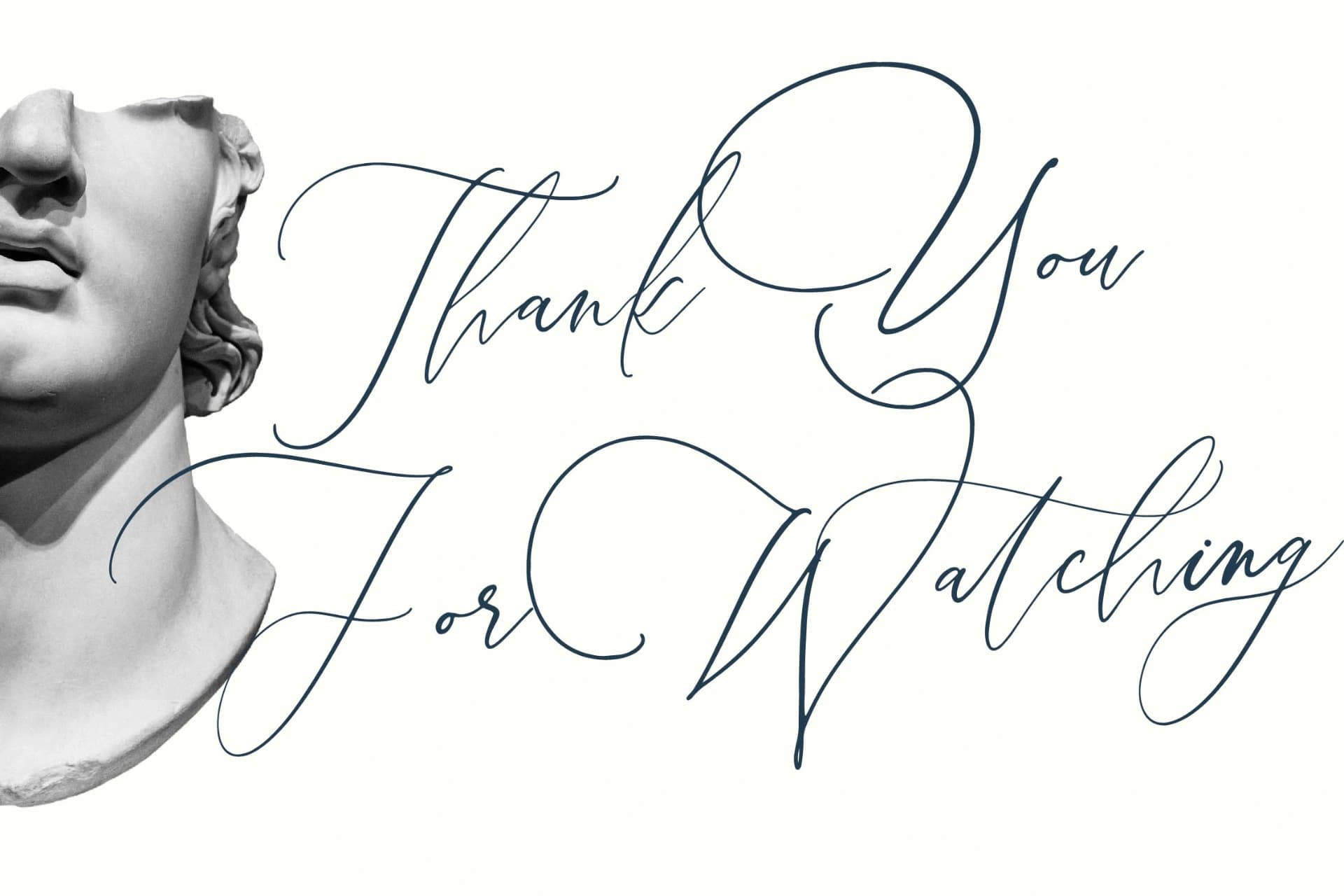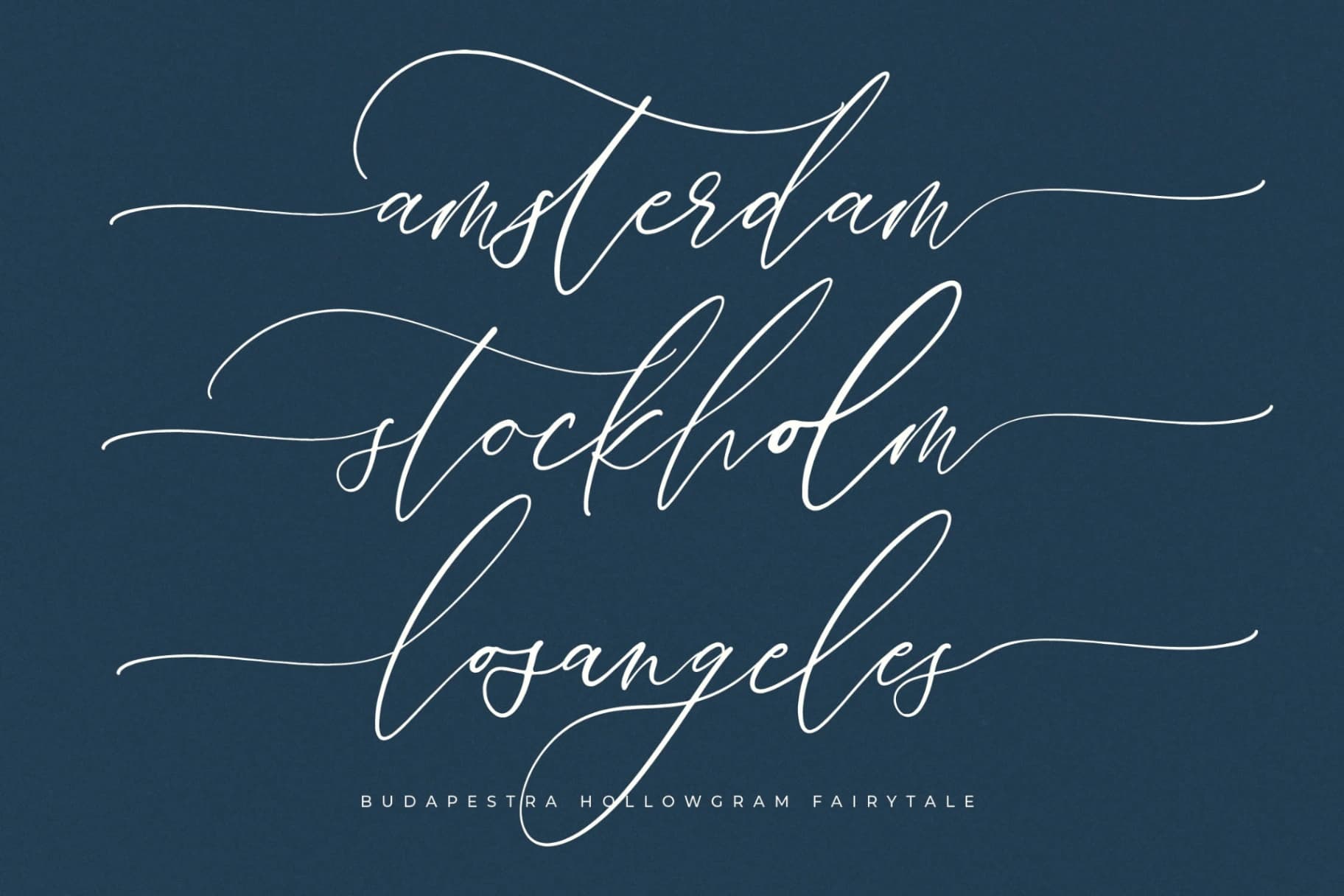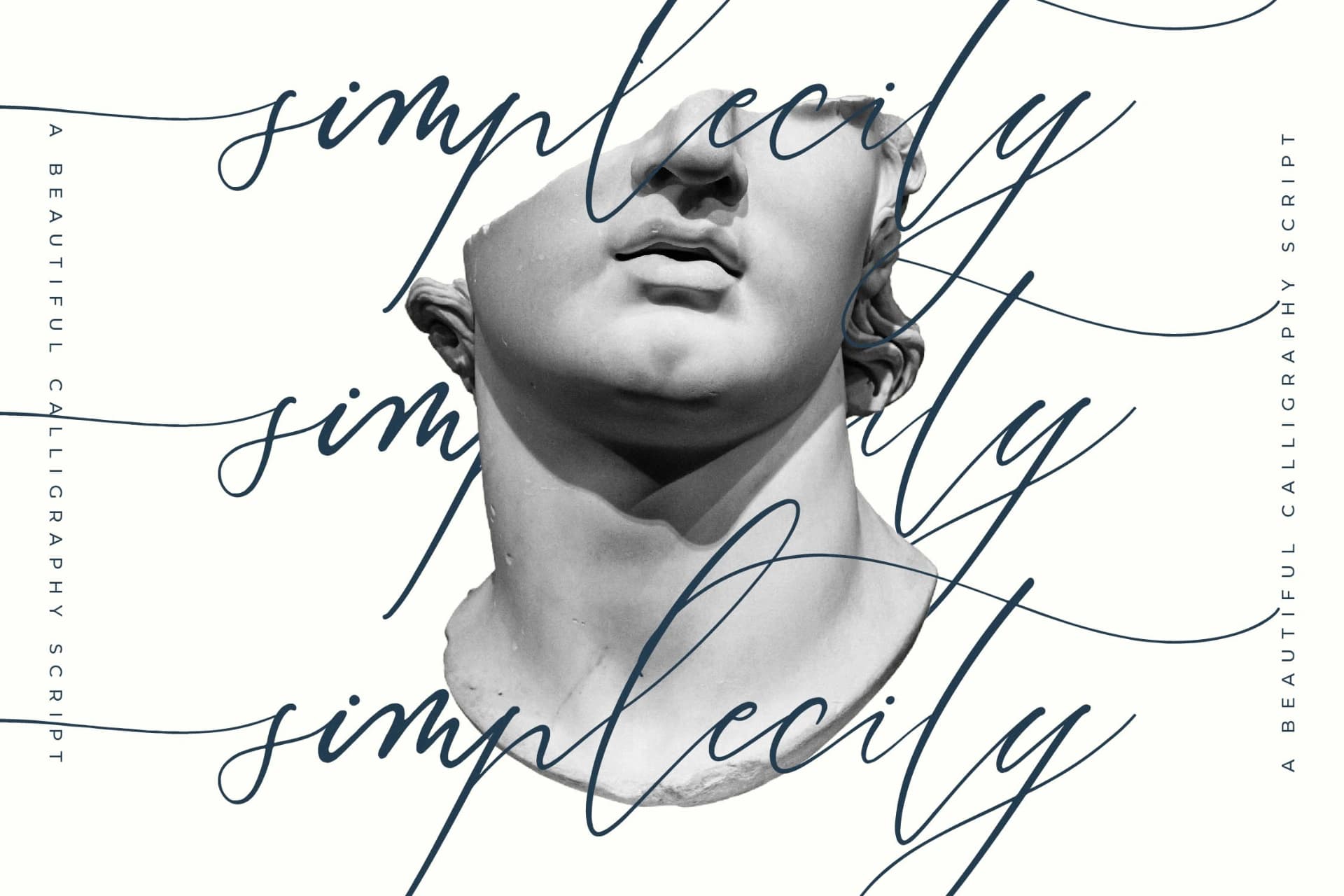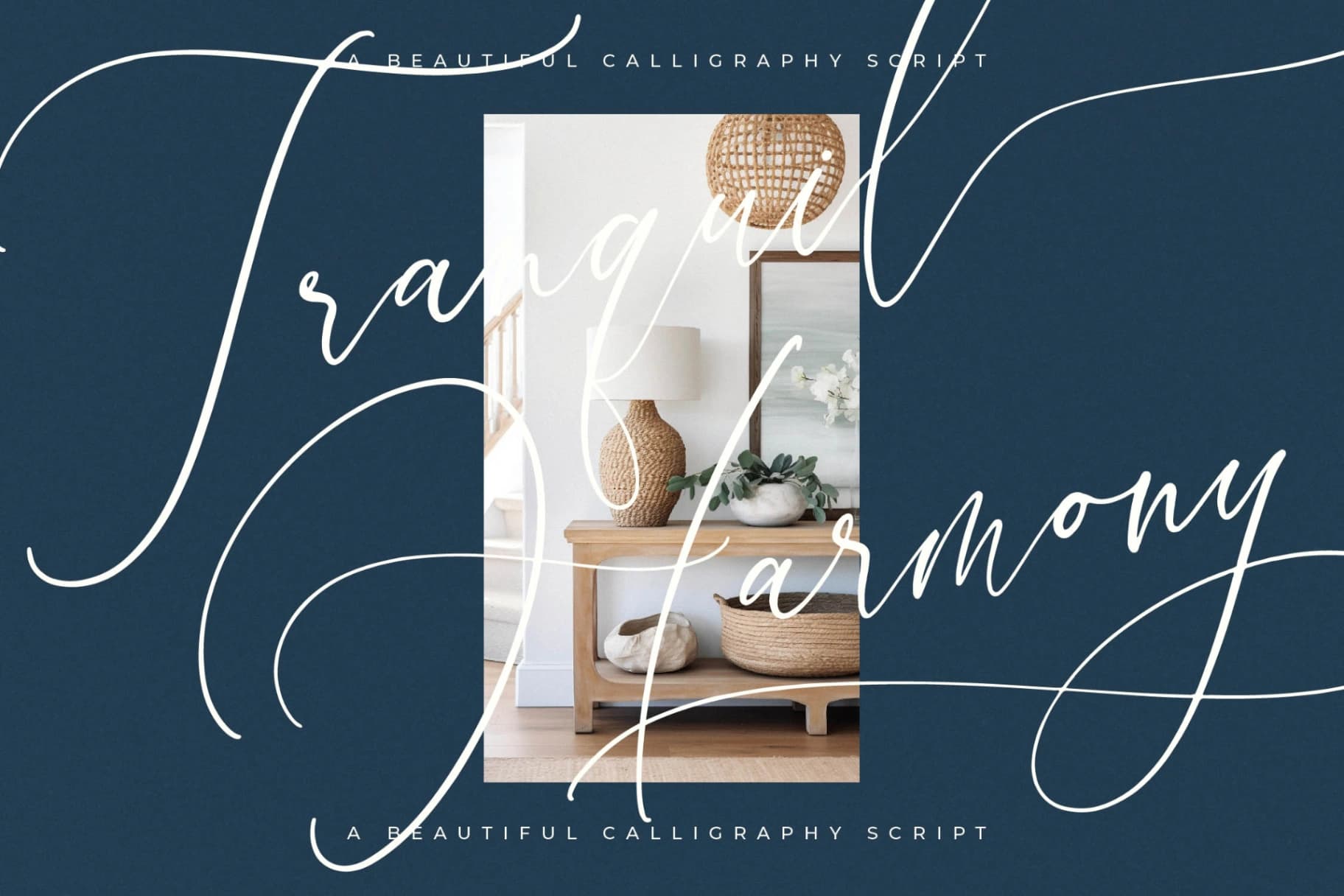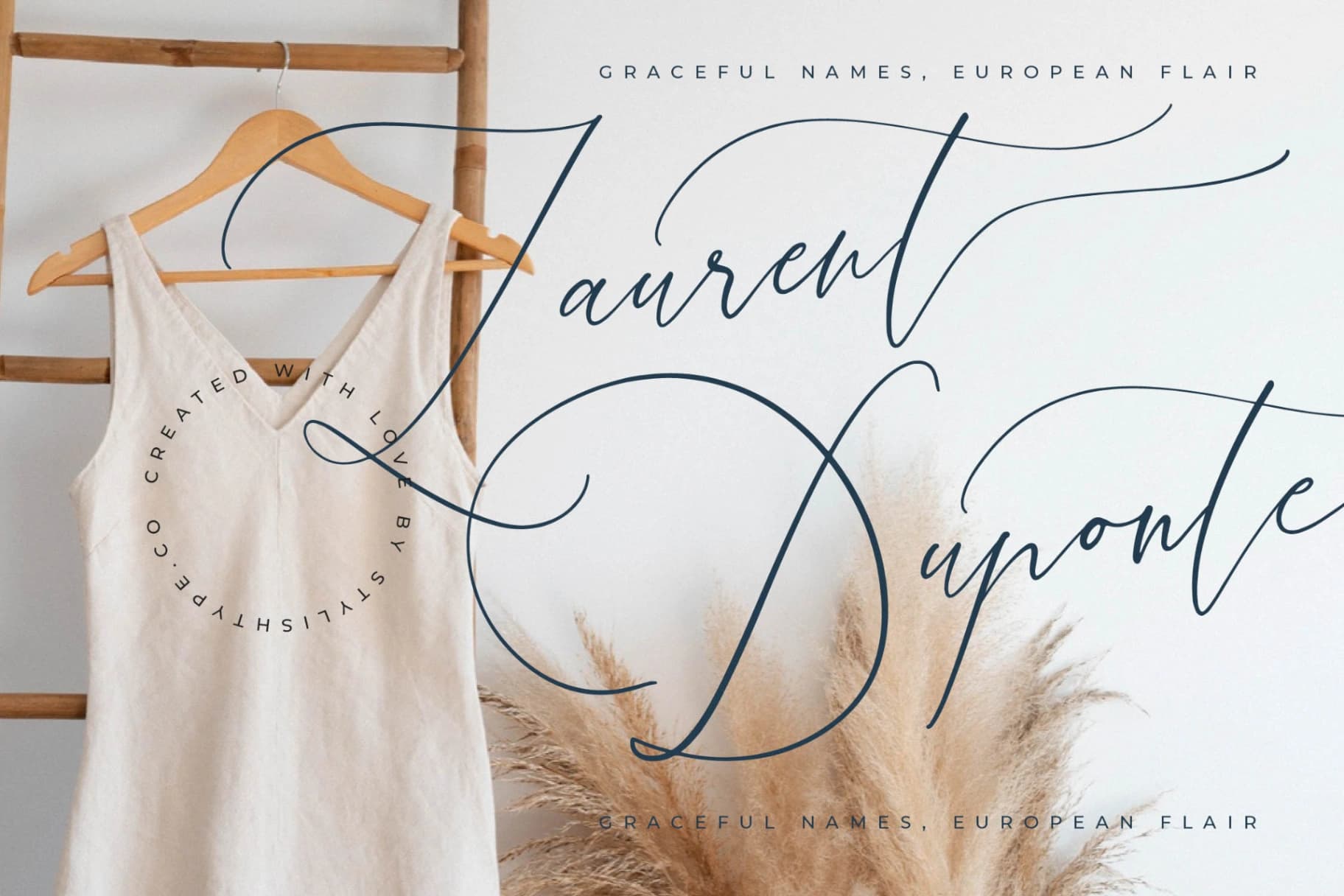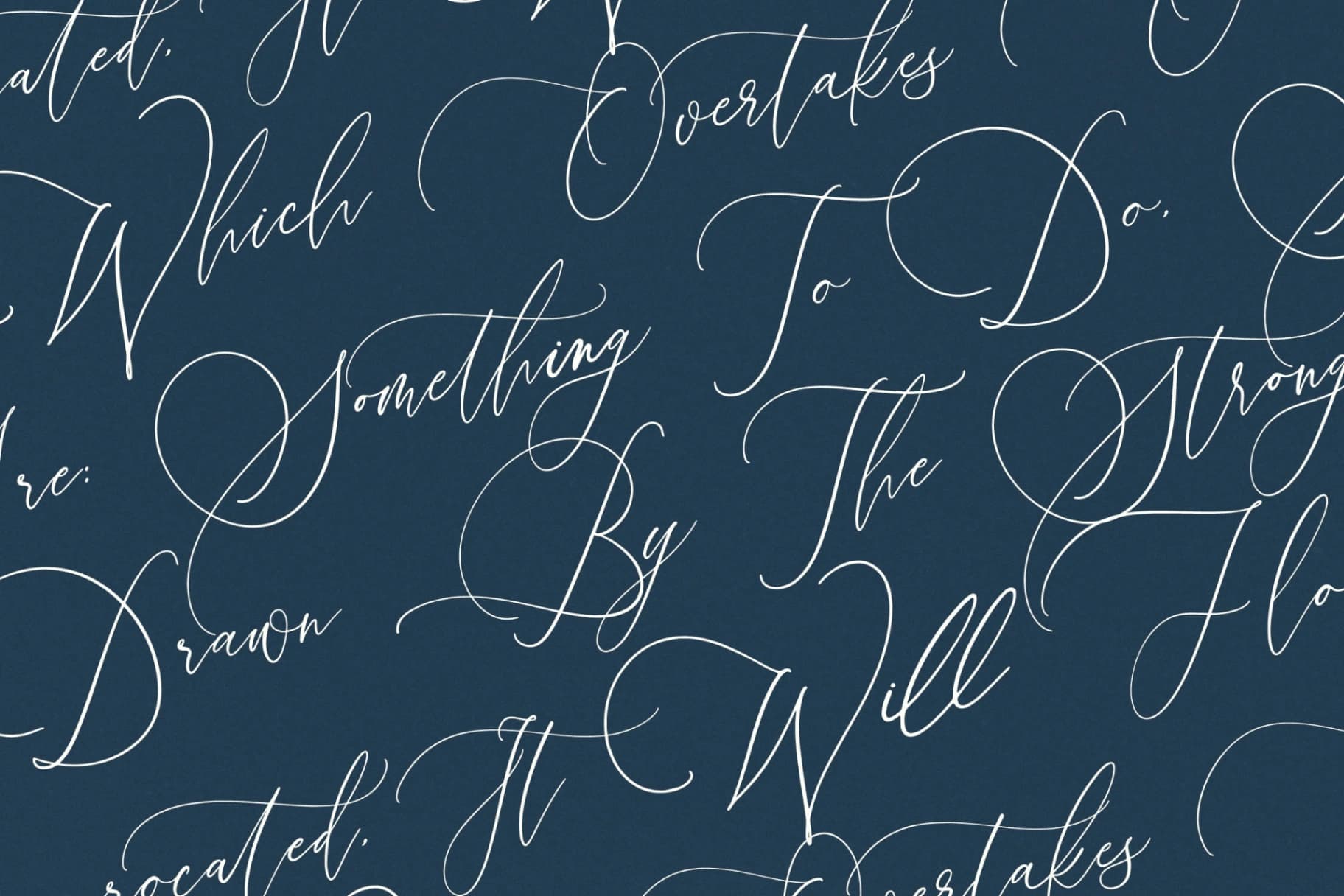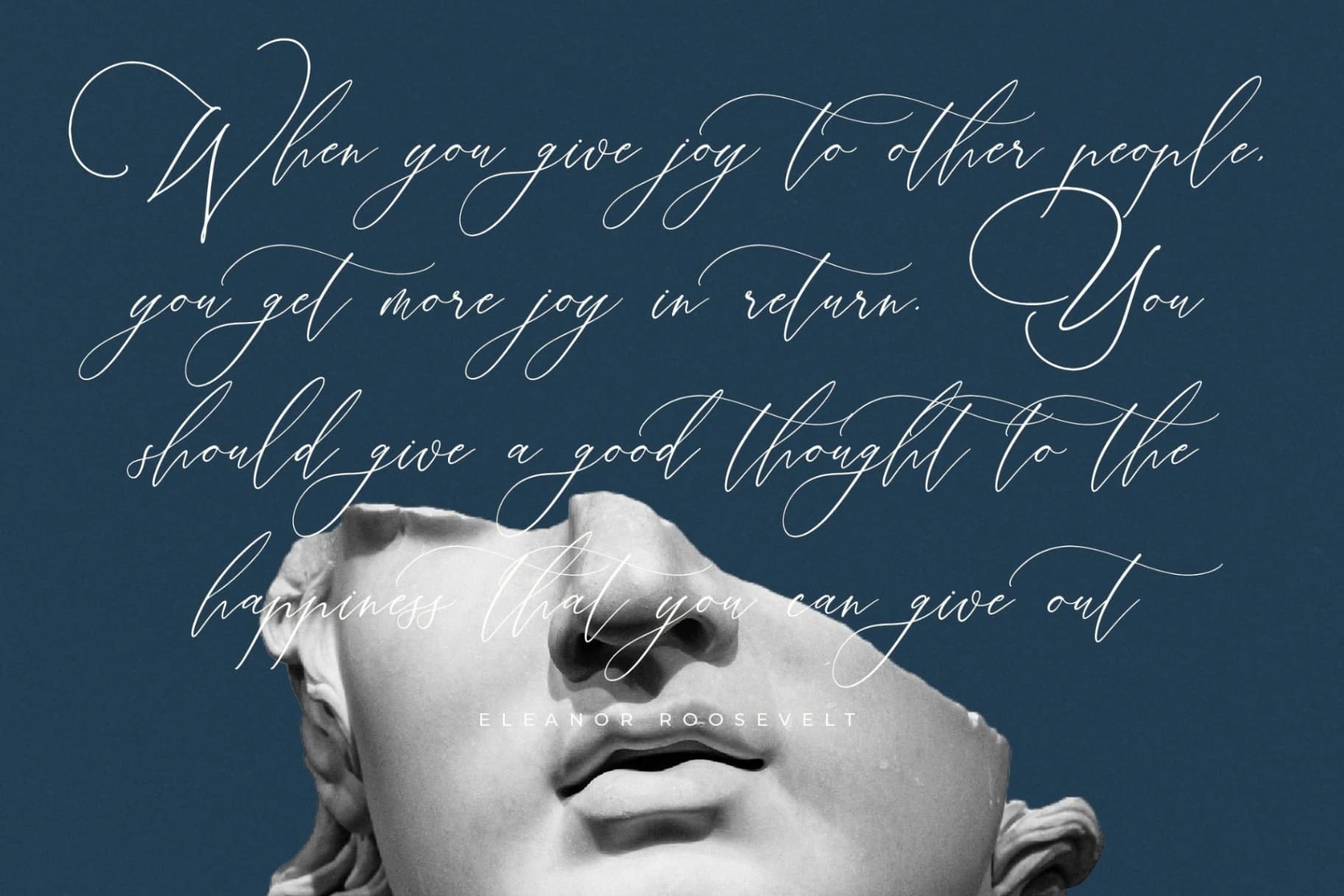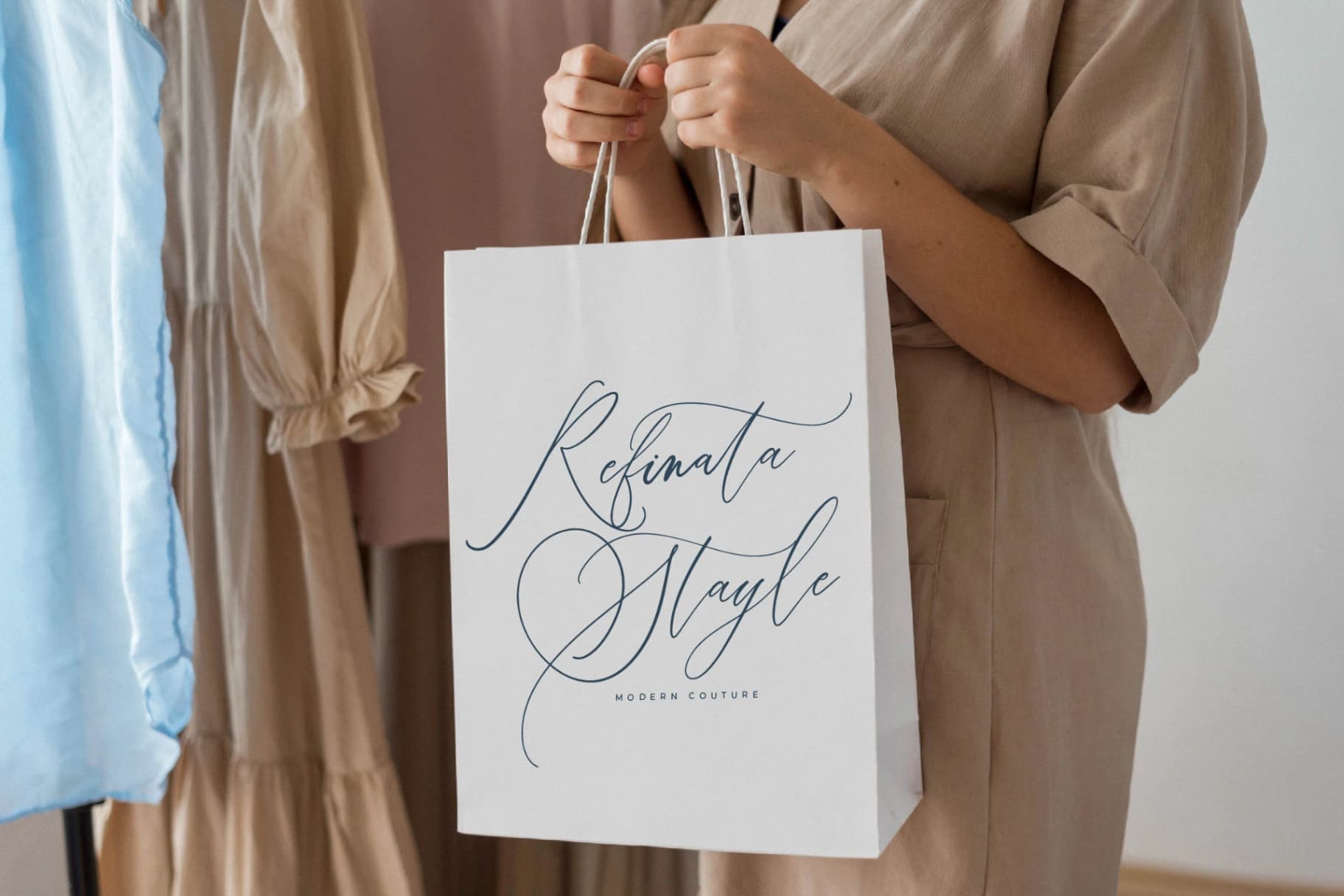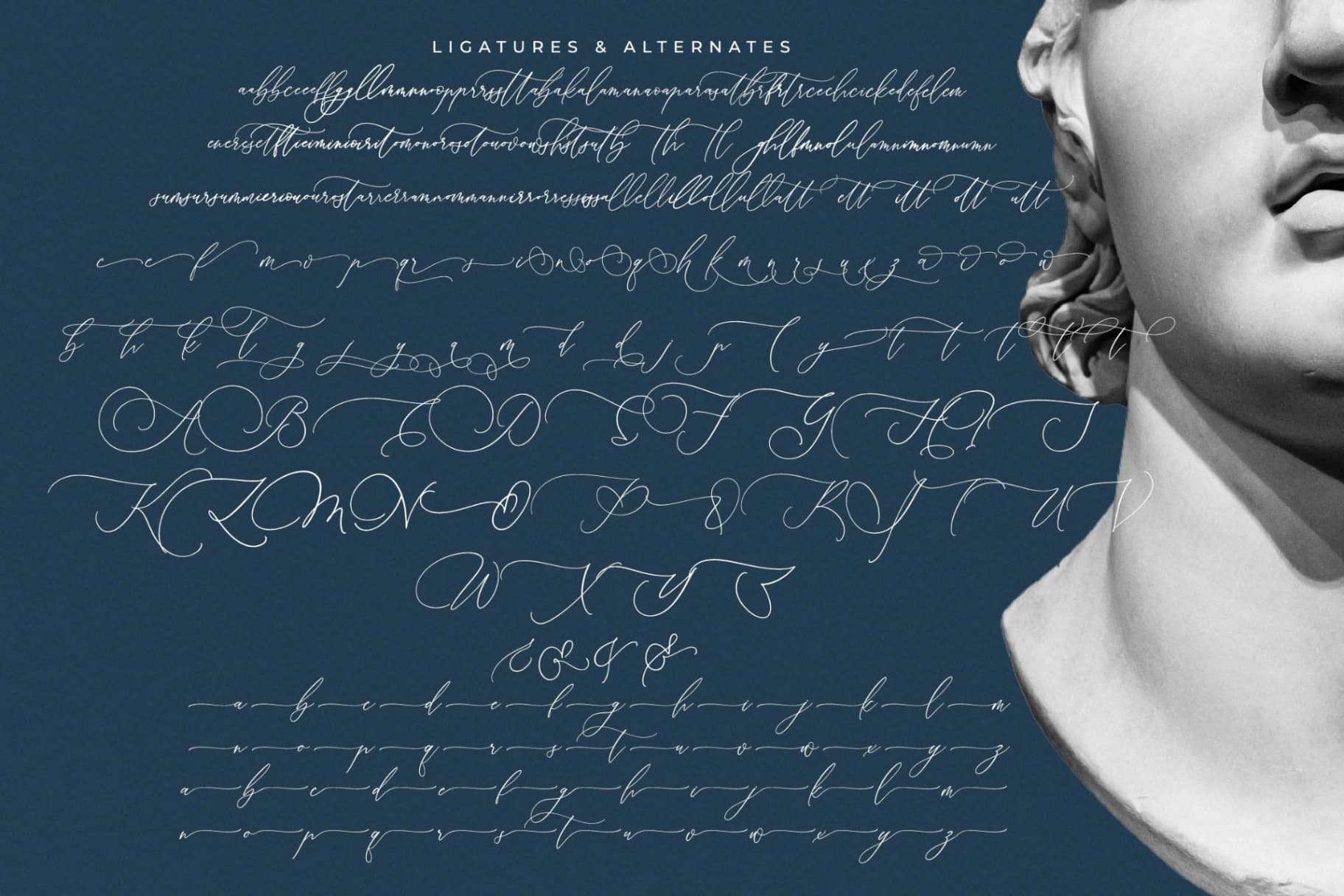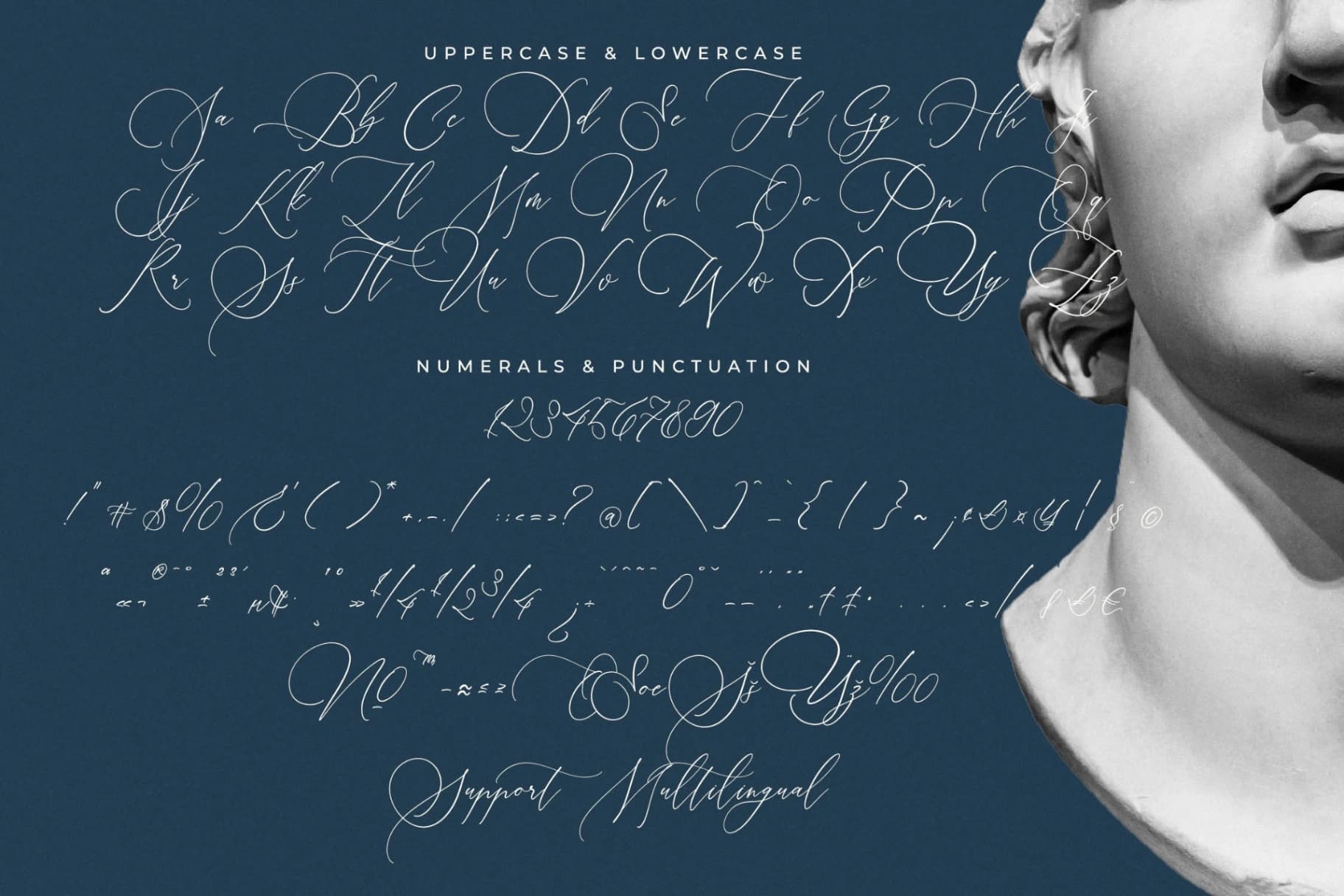
Budapestra Hollowgram Fairytale - Beautiful Calligraphy Script
Budapestra Hollowgram Fairytale is a luxurious calligraphy script created to bring together the charm of timeless handwriting with a touch of modern elegance. Designed with flowing curves, long swashes, and refined ligatures, this font transforms every word into a piece of visual art. With over 96 ligatures and 128 alternates, it provides unmatched flexibility for creating unique lettering compositions that feel both personal and exclusive.
Every detail in Budapestra Hollowgram Fairytale was crafted to deliver a sense of romance, sophistication, and authenticity. Perfectly suited for wedding invitations, luxury branding, fashion logos, and editorial layouts, this script font is versatile across both print and digital platforms. Whether you want to design boutique packaging, high-end product labels, or create an elegant social media presence, this font ensures your work stands out with premium quality.
The true power of Budapestra Hollowgram Fairytale lies in its ability to communicate emotion through typography. Each curve conveys a sense of warmth and artistry, making your projects not just visually appealing but also memorable. From romantic stationery to exclusive advertisements, this typeface adds a layer of luxury and storytelling that elevates any creative work.
If you are searching for a font that combines elegance, versatility, and artistic expression, Budapestra Hollowgram Fairytale is the perfect choice. It is more than just typography — it is a design investment that turns text into a lasting impression.